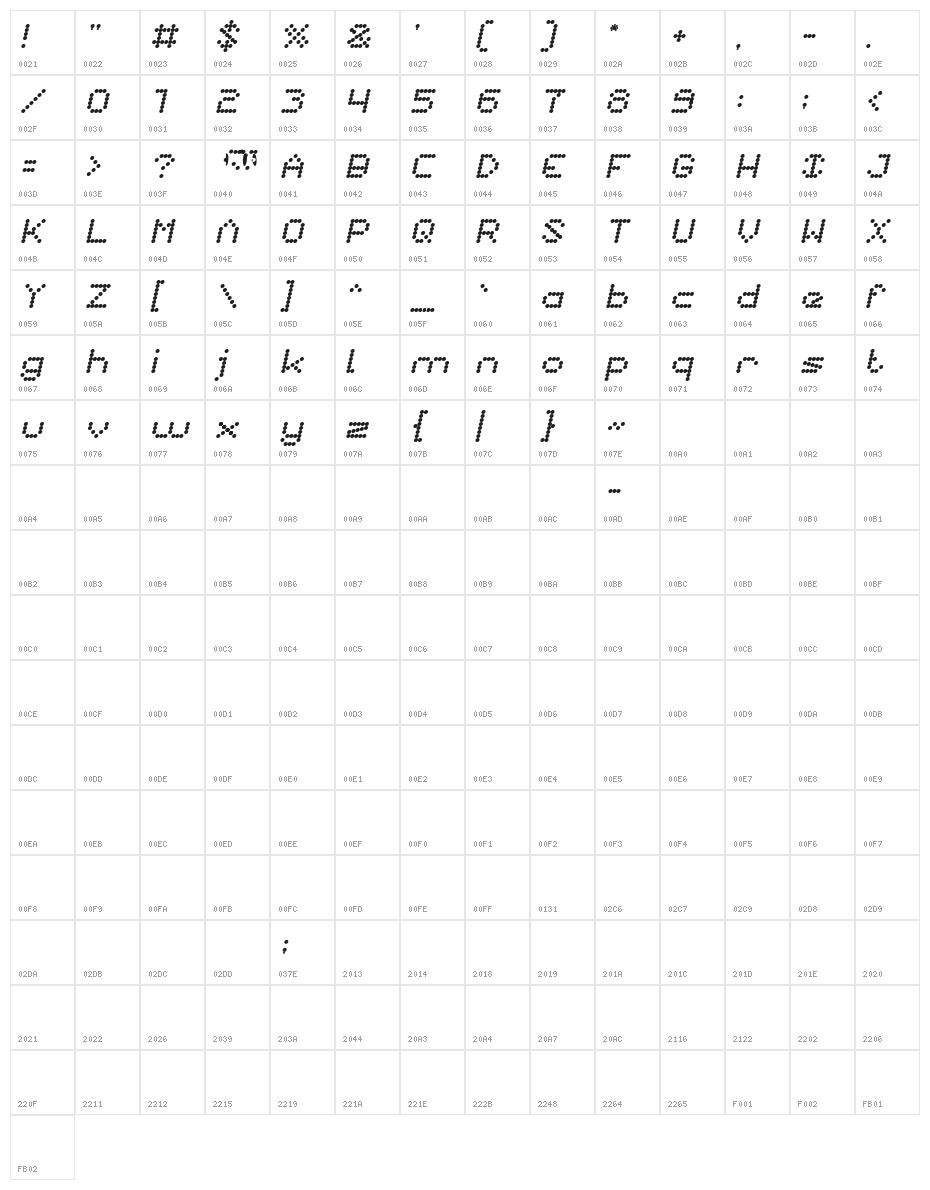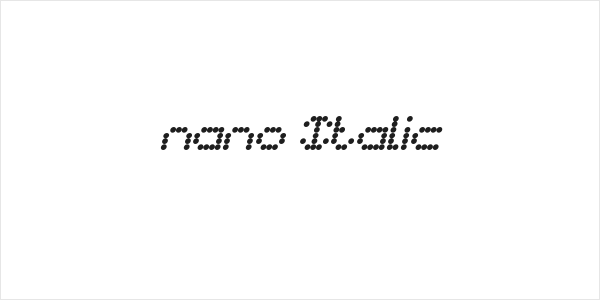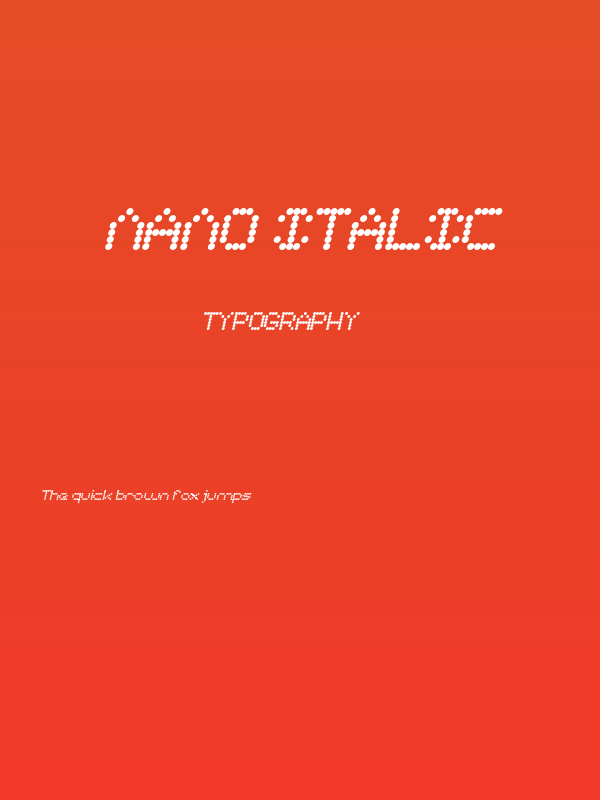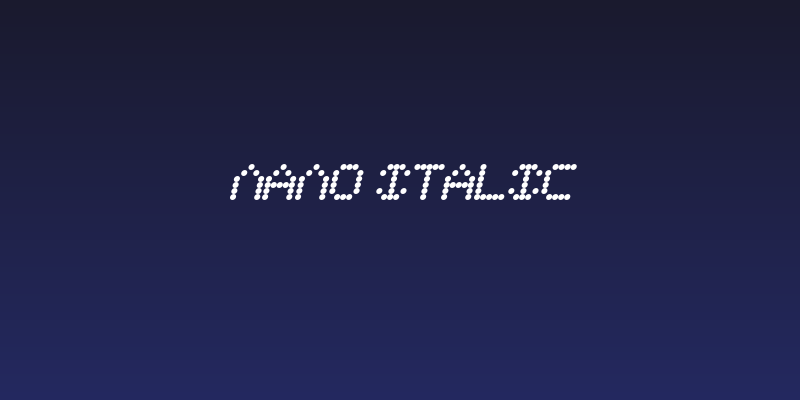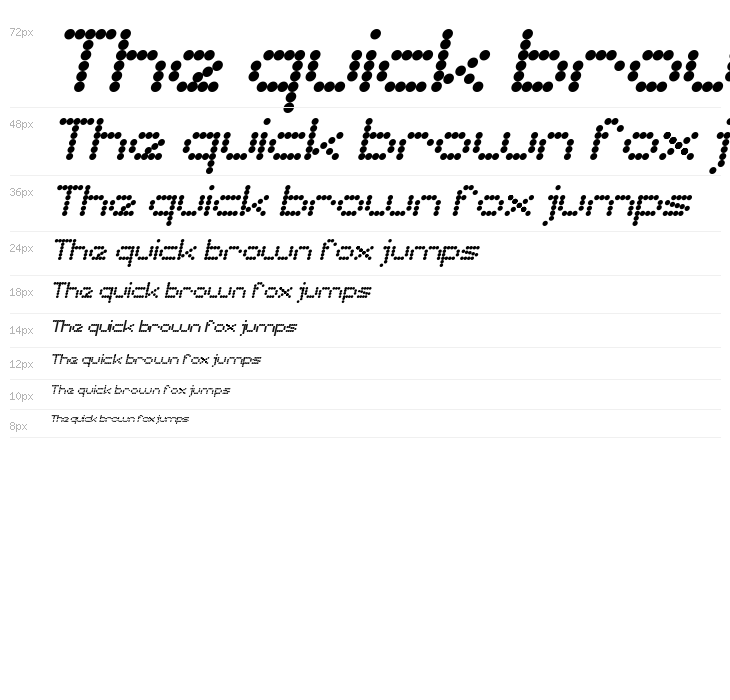
nano Italic Font
nano Italic Description
This font features a unique dotted design, where each character is composed of a series of evenly spaced dots, creating a digital and modern appearance. The characters are italicized, giving them a dynamic and forward-leaning posture. The uppercase and lowercase letters maintain a consistent style, with rounded edges and a uniform dot size. Numbers and special characters follow the same dotted pattern, ensuring a cohesive look across all elements. The font's playful yet structured design makes it suitable for creative and tech-oriented projects.
| Use Case | Logos, Headlines, Digital displays |
| Proposed Projects | Ideal for digital displays, tech branding, futuristic designs, and creative posters. |